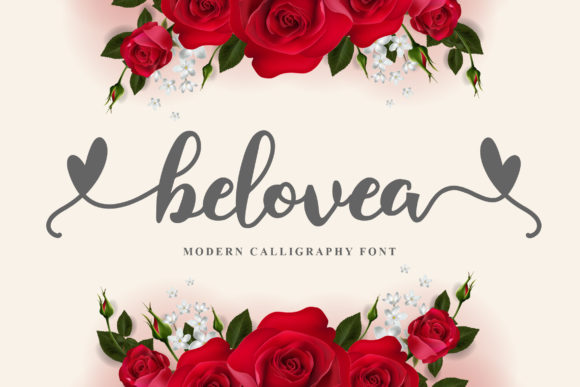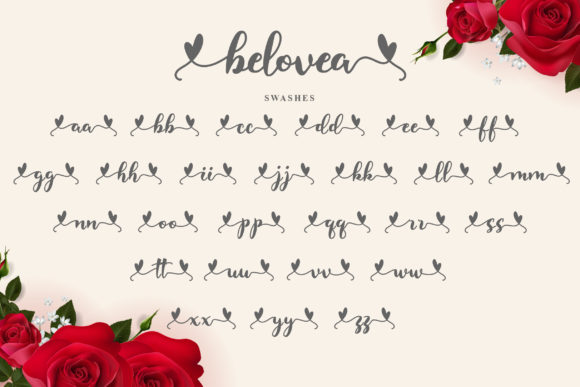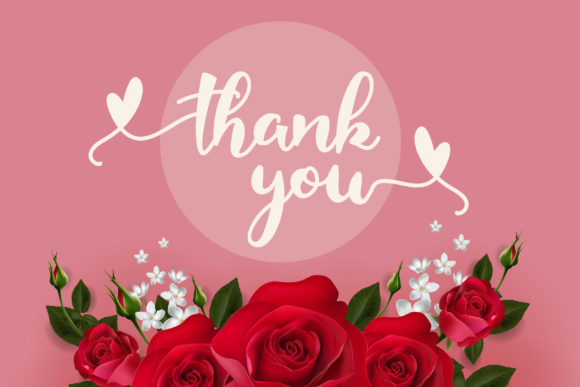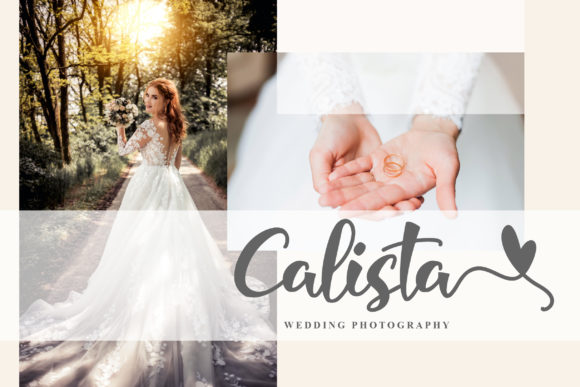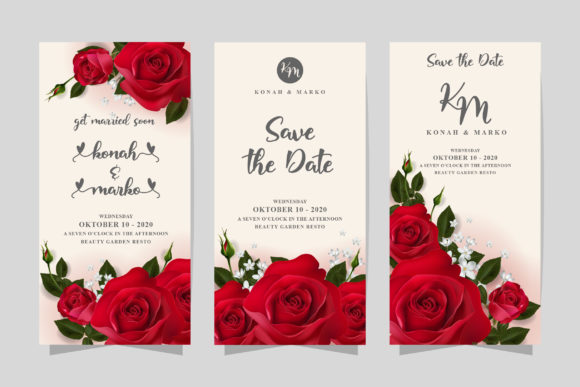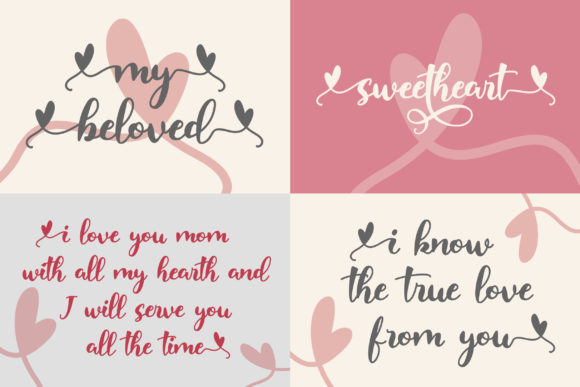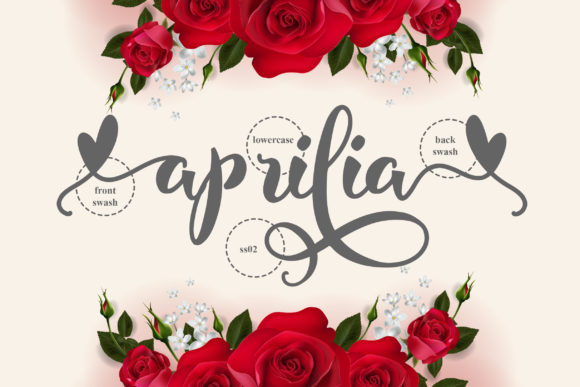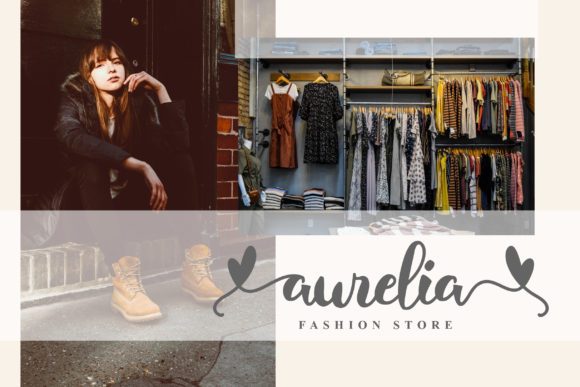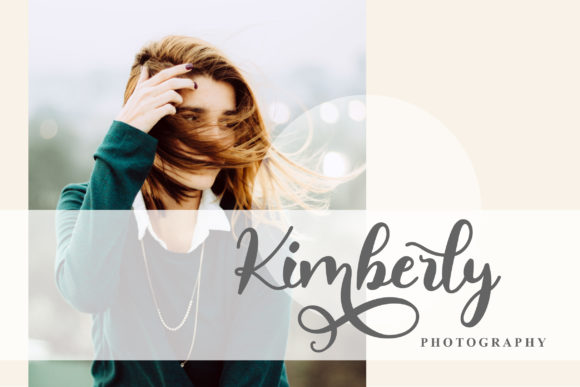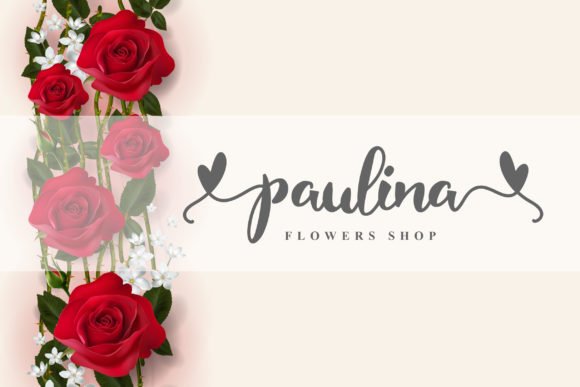
Belovea Font
About Belovea Font
Belovea is a modern and romantic calligraphy font. It features amazing heart shaped swashes. Use Belovea to create beautiful wedding invitations, cute stationary art and amazing greeting cards.